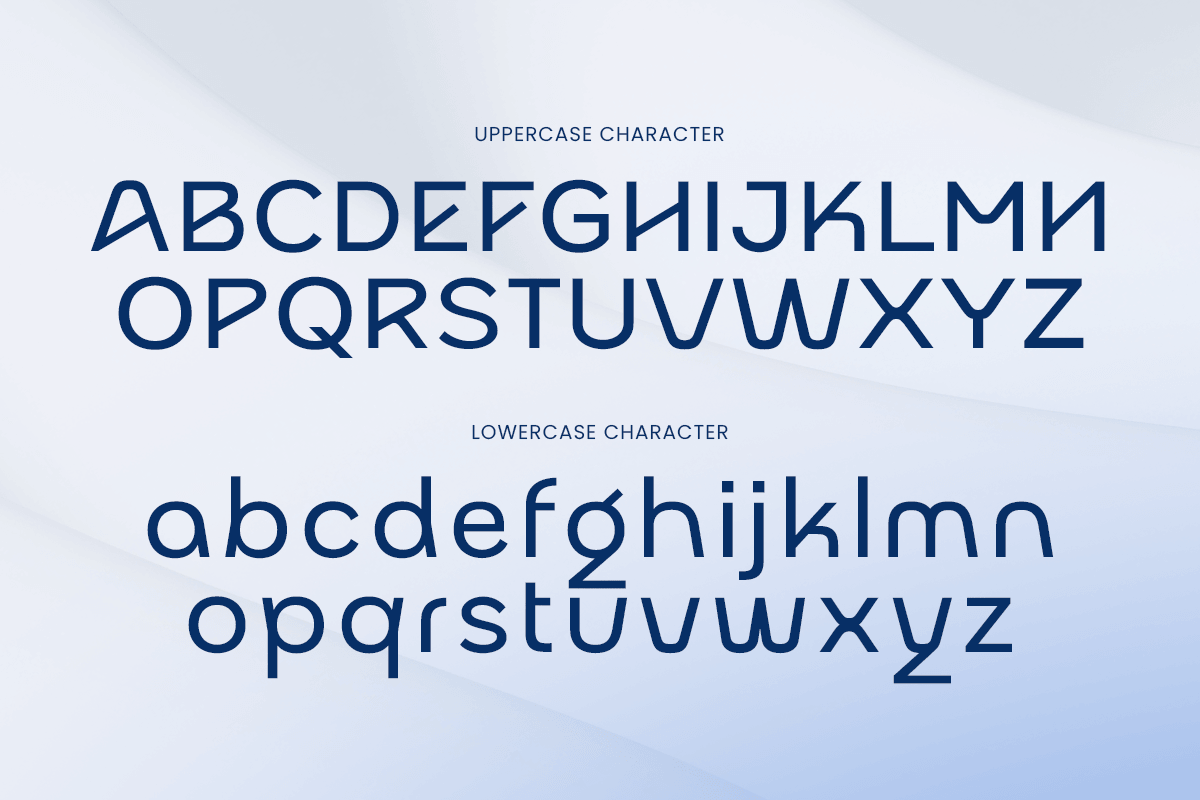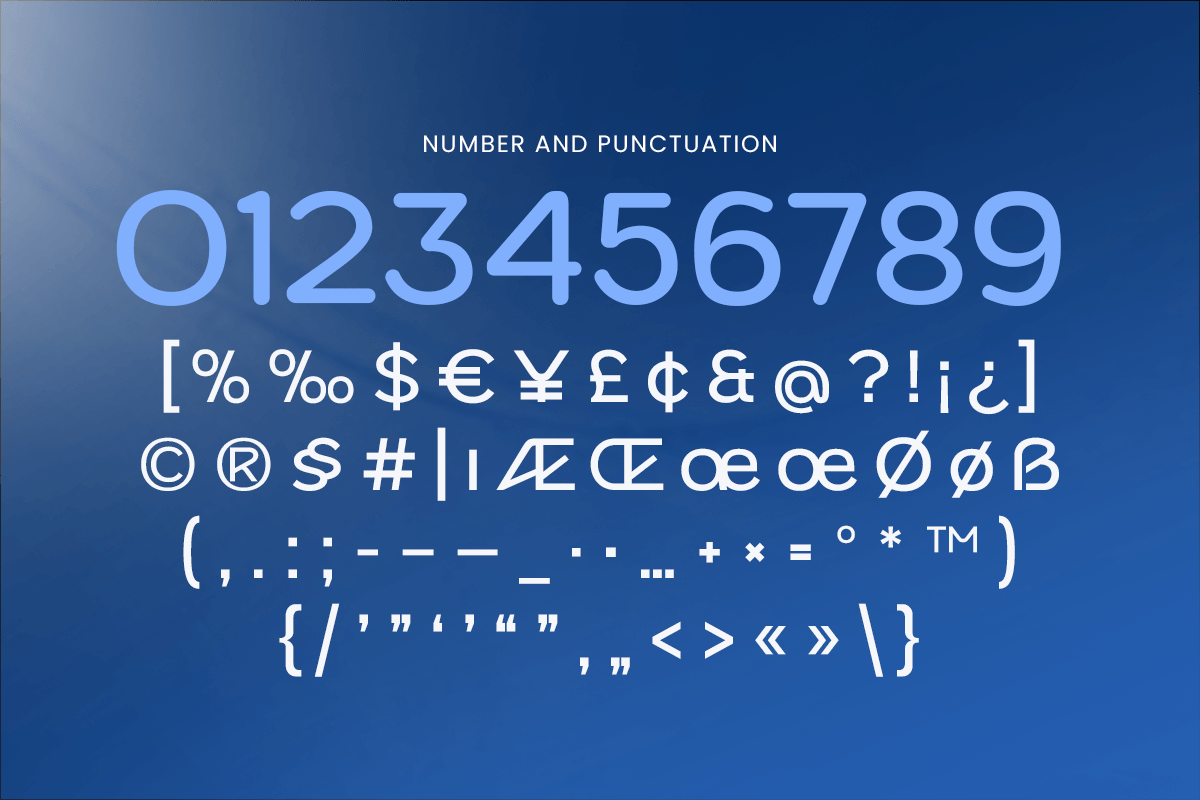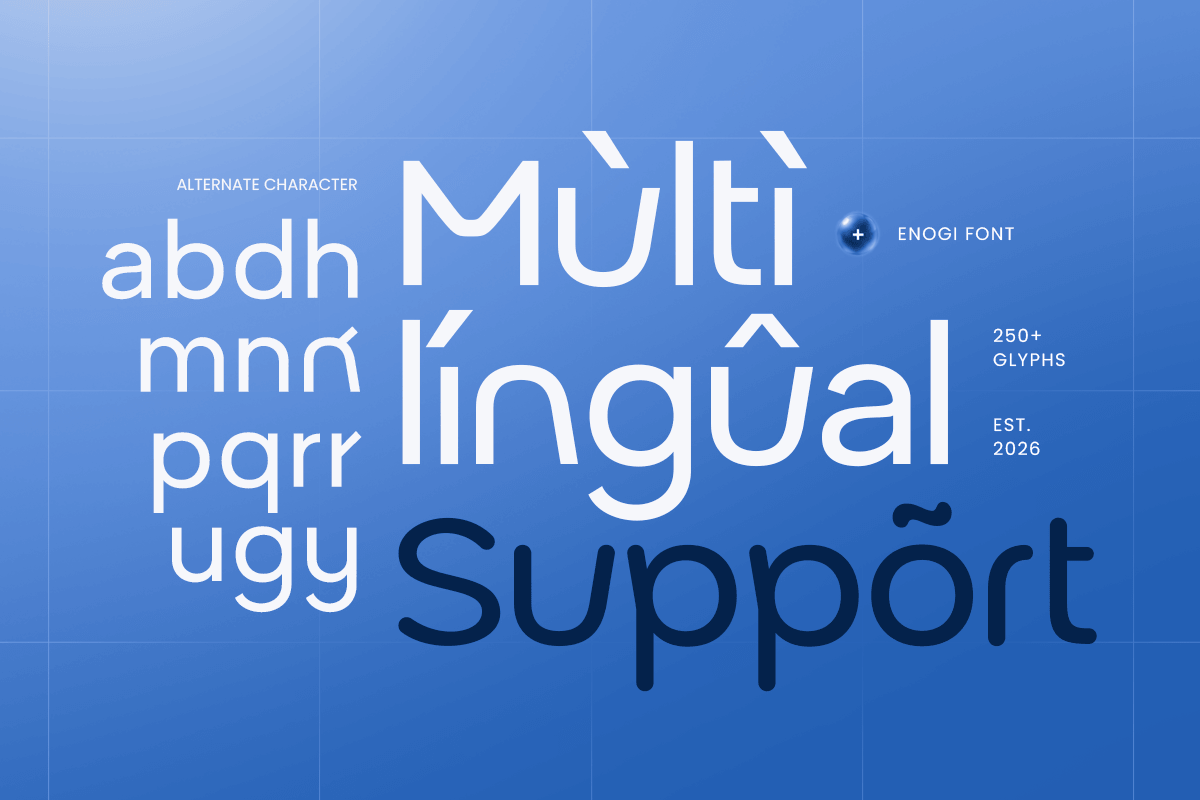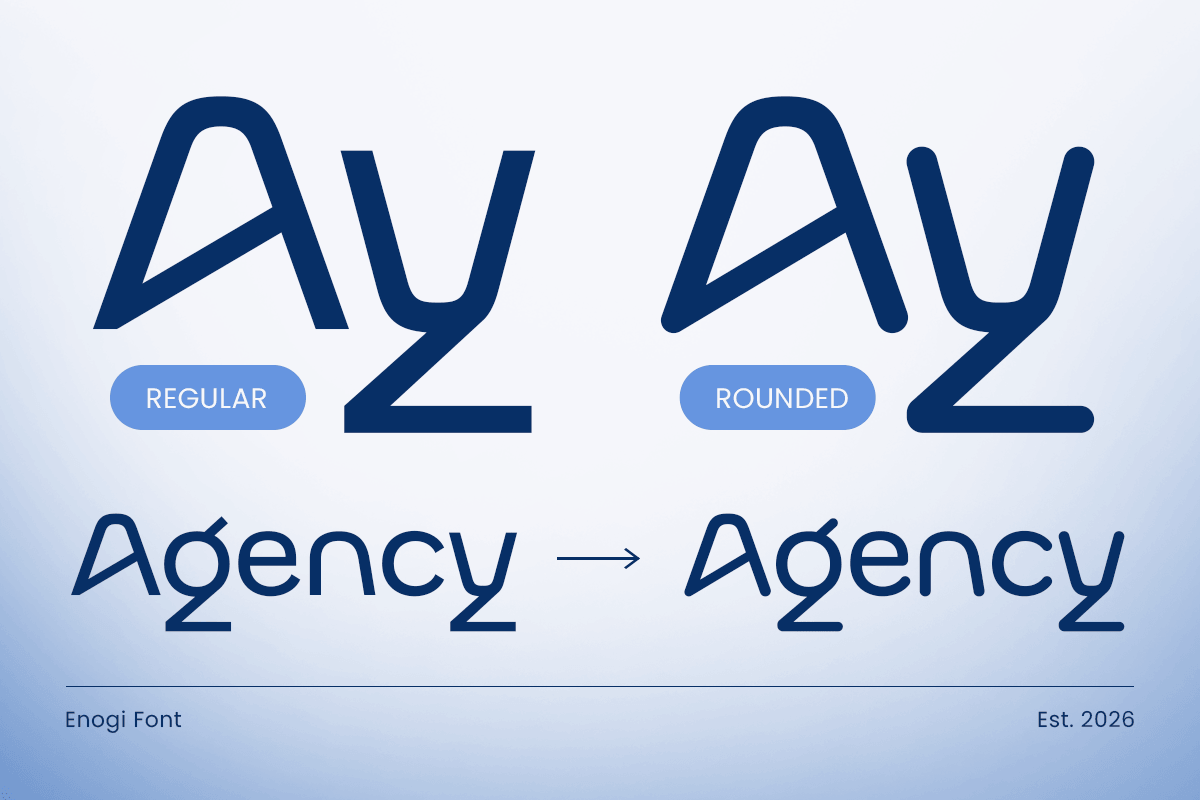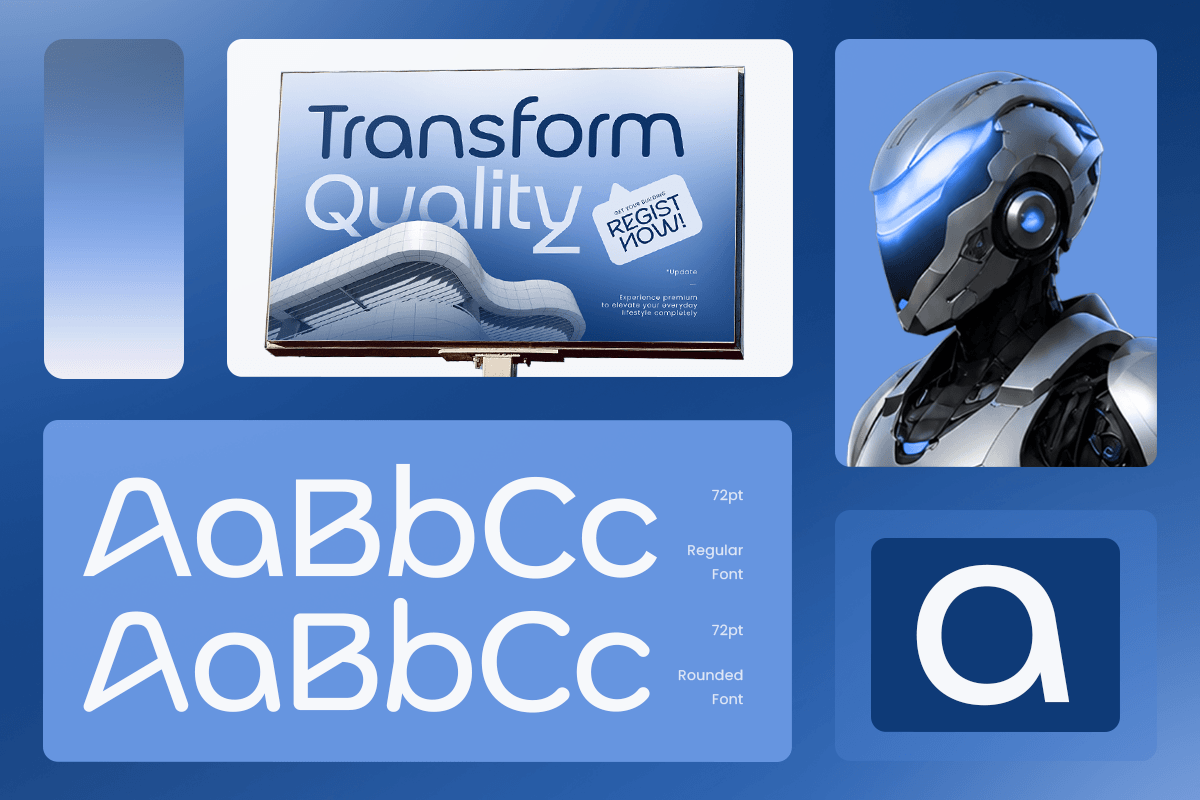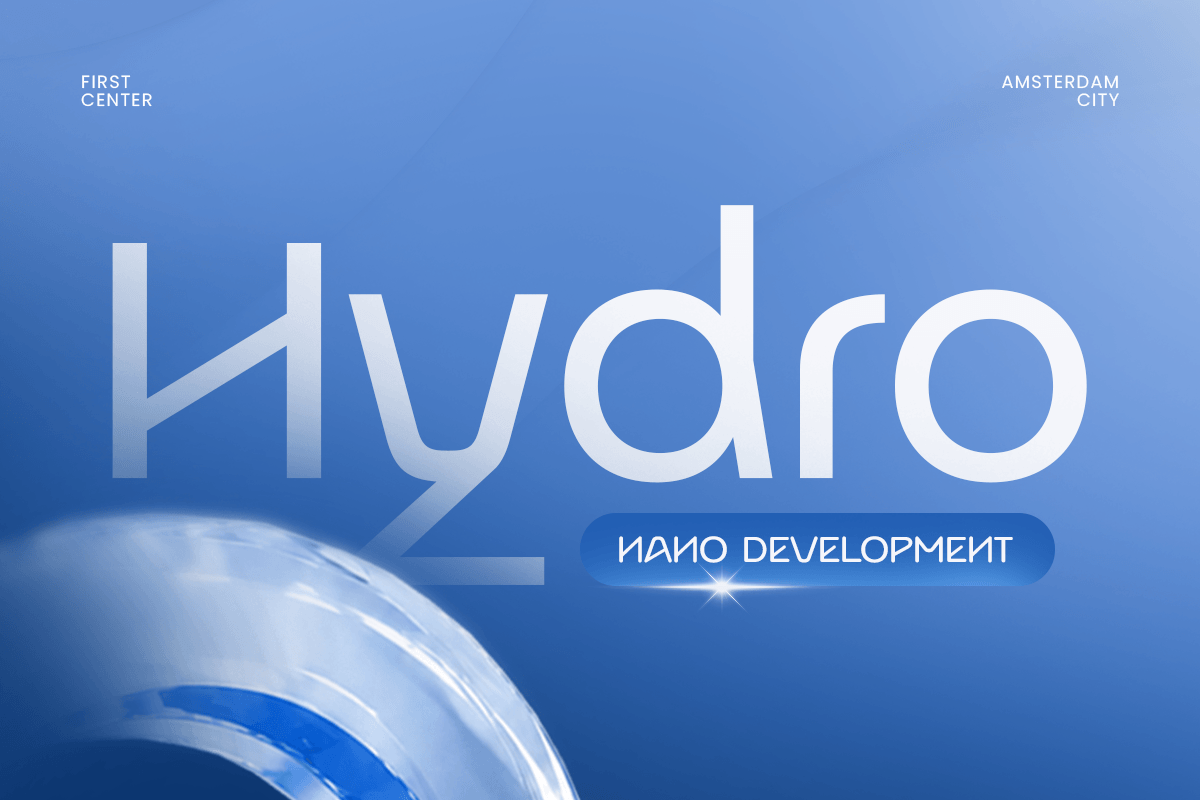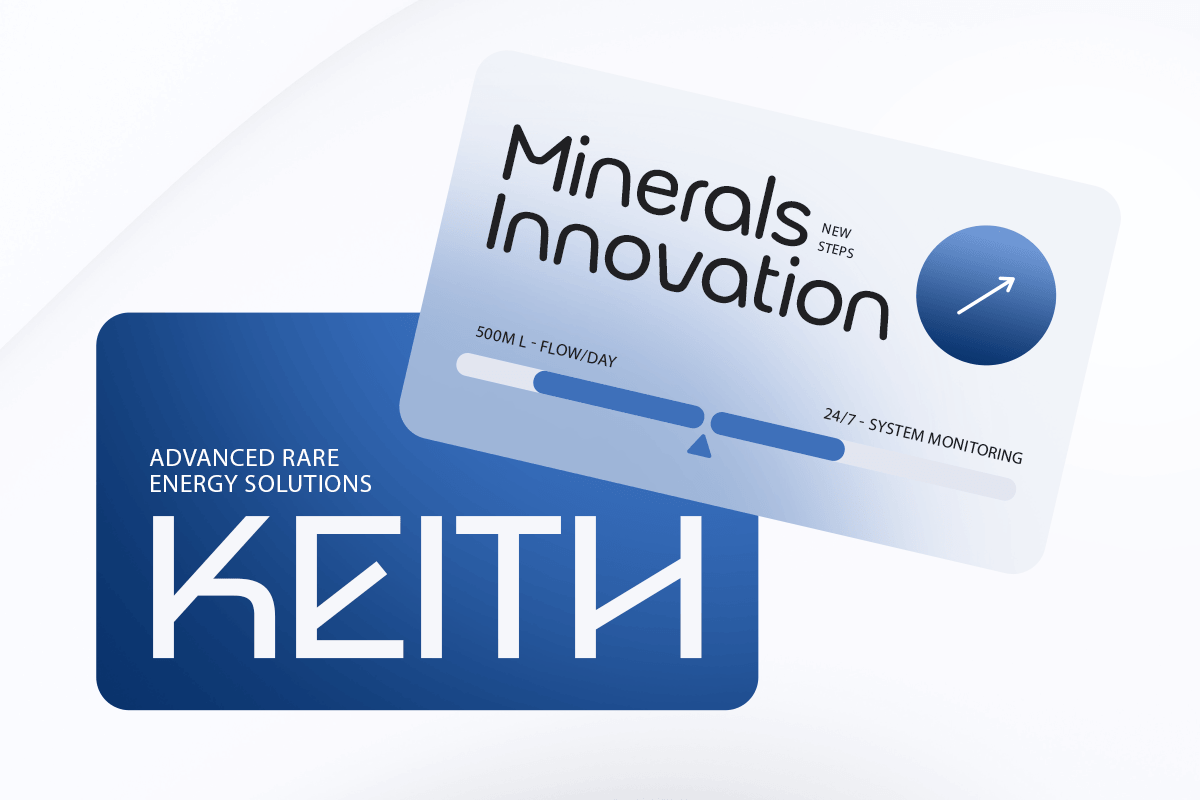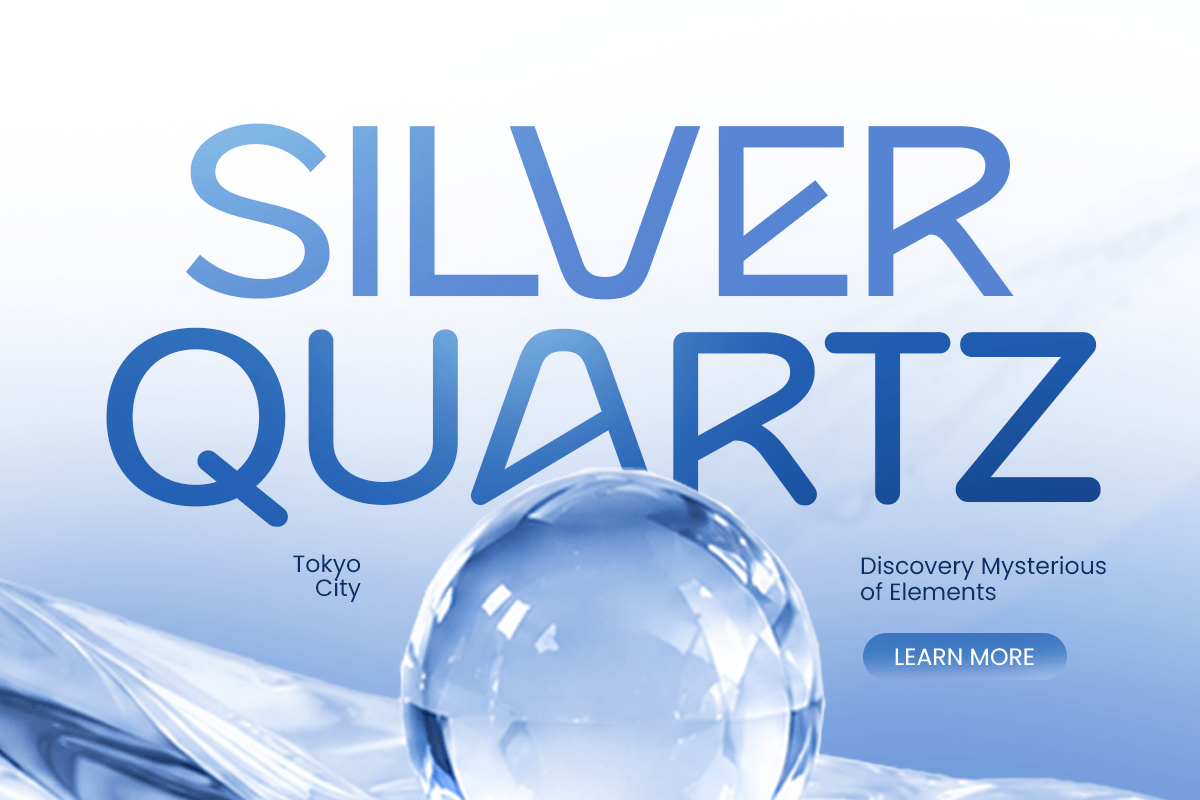
Enogi – Modern Corporate Logo Font
Enogi is a modern logo font designed with a clean, sleek, and contemporary aesthetic. Featuring balanced letterforms and a refined visual style, Enogi creates a professional impression for brands that need a strong and memorable identity. Its minimalist structure makes it a versatile choice for modern businesses and creative projects.
Perfect for logo design, brand identity, packaging, website headers, social media graphics, posters, and digital applications, Enogi brings a polished and modern feel to every layout. The font’s clean appearance allows it to work beautifully across technology, lifestyle, fashion, and creative industries.
With its timeless character and adaptable design, Enogi helps designers create distinctive visual identities that feel fresh, professional, and future-ready. Whether used for startups, product branding, or premium corporate visuals, Enogi delivers clarity and confidence.
Enogi – Modern Logo Font Features
- Clean modern logo-focused letterforms
- Minimalist style with professional appearance
- Perfect for branding, logos, packaging, and headlines
- Includes uppercase, lowercase, numerals, and punctuation
- Great for digital and print projects
- Suitable for UI design, social media, and advertising
- OpenType features for creative flexibility
Create a powerful brand presence with Enogi – a modern logo font designed for clean, memorable, and professional identities. ✨